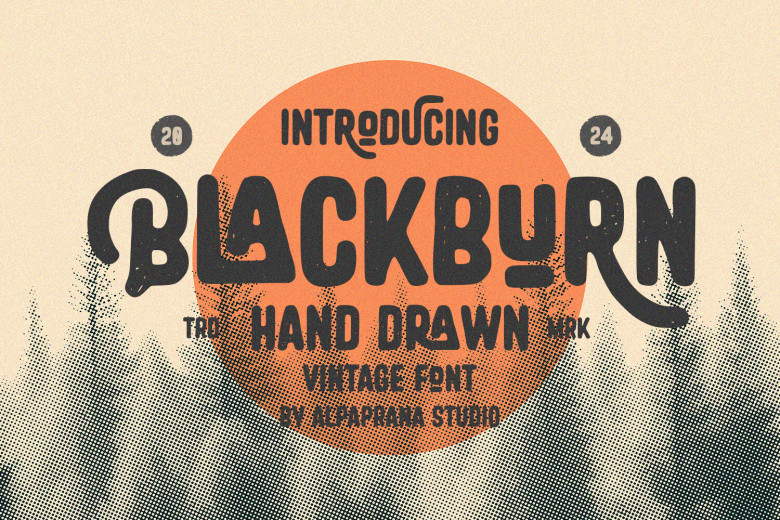
Blackburn Vintage Font
Blackburn is a retro, rustic sans-serif typeface designed to evoke old-world charm with its bold letterforms and worn edges, creating a nostalgic and weathered aesthetic. Ideal for branding, logo design and Lettering projects, logotype clothing packaging magazine bags shopping posters T-shirts posters book covers photographs special occasions etc.
Blackburn Retro Vintage Font